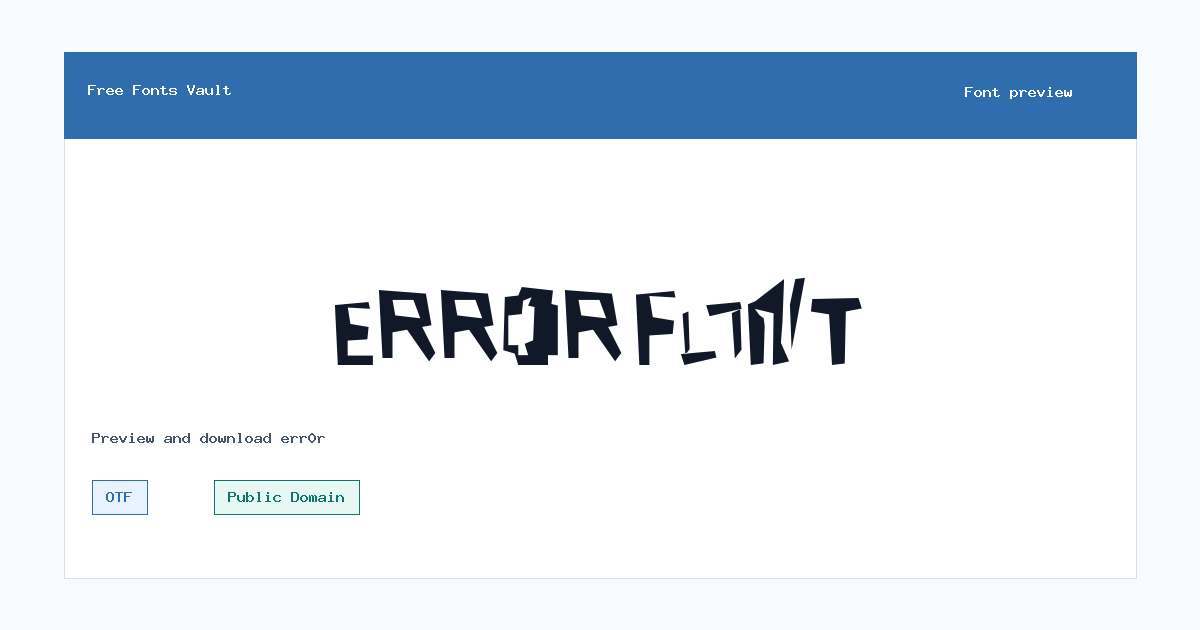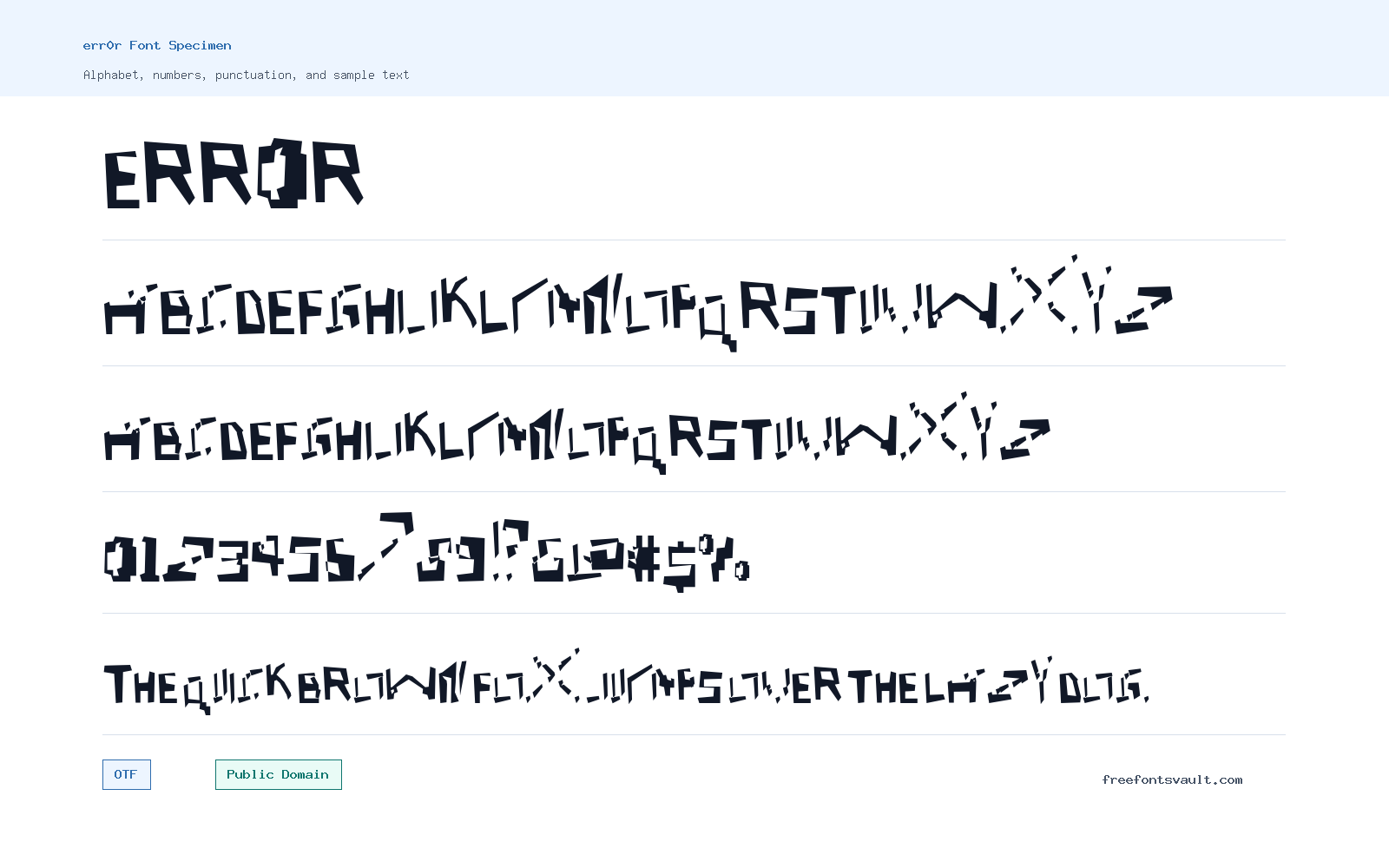
err0r
err0r is Mew Too’s deliberately broken glitch alphabet for Cannot Into Space Fonts. The damage is built into each glyph: strokes fragment, tilt and drop away, creating an unstable screen-error effect without a separate texture layer.
What the reviewed file shows
The specimen reveals different failures in each character. The capital E loses horizontal pieces, the O is split into an angular shell, and narrow letters appear offset like corrupted scan lines. Lowercase letters repeat many uppercase structures at a smaller scale. The limited punctuation keeps the same fractured logic, so even a short warning looks intentionally damaged.
Use err0r for a game title, cyber poster, fictional system alert, track name or one experimental wordmark. It is not suitable for body text, functional warnings or small navigation because the missing strokes are the design. Pair it with a plain monospace or sans serif whenever the reader must act on the message.
Practical preview checks
Preview the exact word in uppercase and lowercase. Some letters lose more identifying strokes than others, so confirm that the word remains recognizable without relying on context. Keep essential information in the companion font, not in err0r.